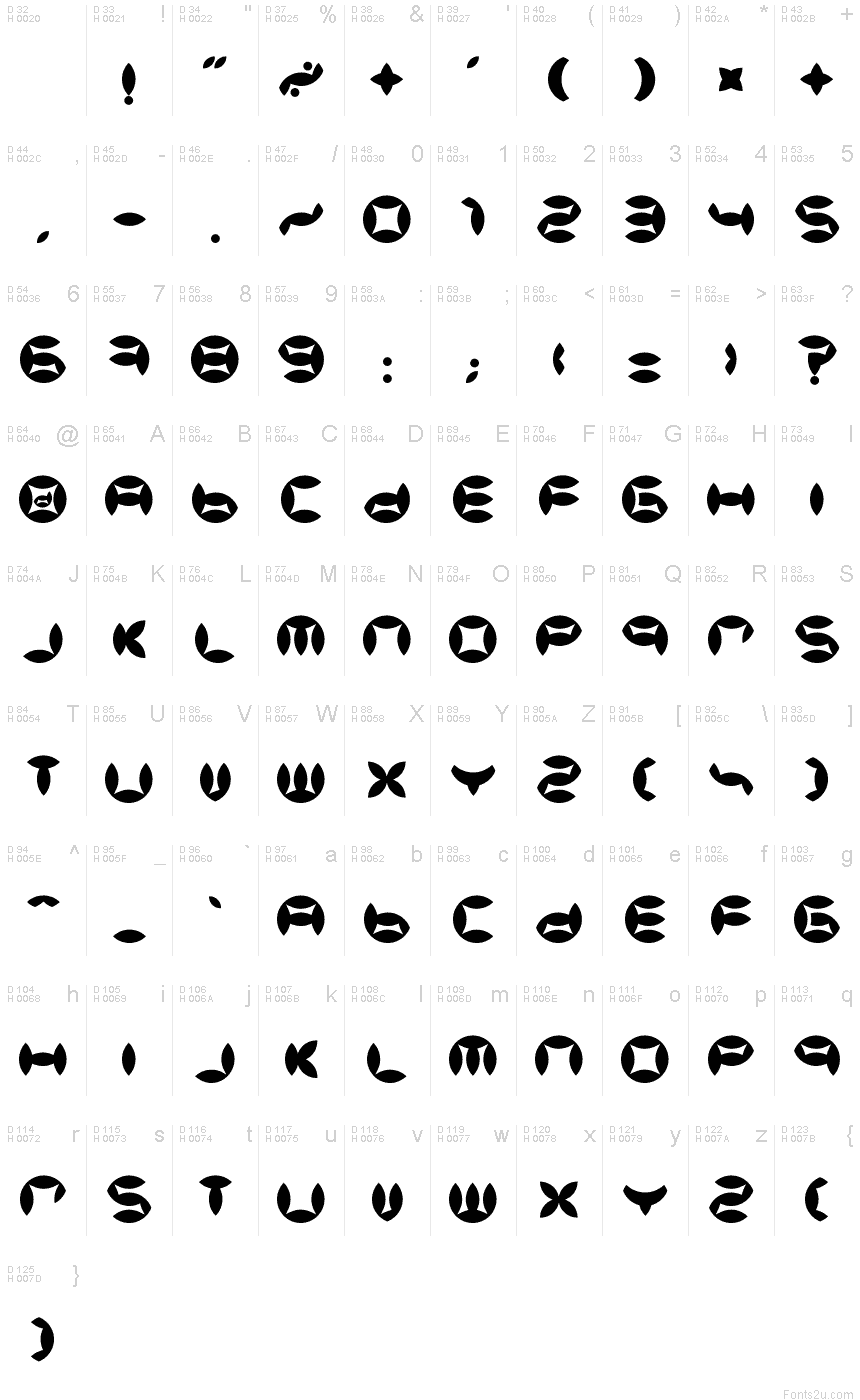
BD Beans, designed by Lopetz 05 for Buro Destruct, is a free abstract digital display font. Each rounded bean-like silhouette holds a sharp, eye-shaped cutout.
Illustrated creatures and stylized mask motifs can directly echo the same staring shapes in game graphics and music posters. The compact forms also suit toy packaging, event merchandise, and playful branding, since every letter reads almost like a small badge or character token. What links these uses is the meeting of soft outer curves with pointed inner wedges, a motif suited to mischievous fantasy subjects.